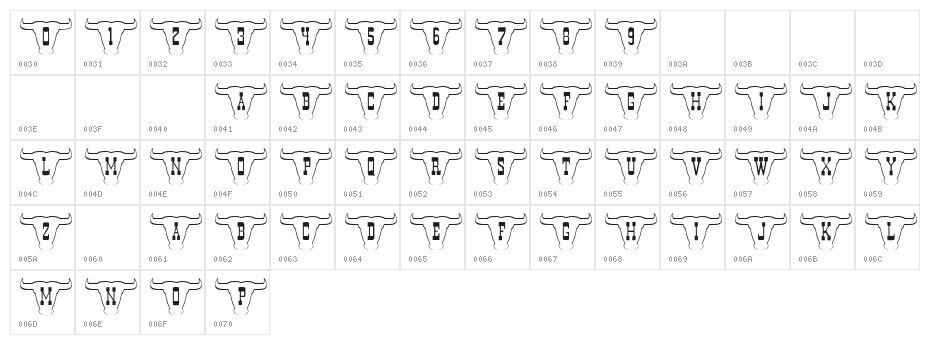
101! Texan Style Font
| Caso d'uso | Headlines, Logos, Themed Events |
| Progetti proposti | Ideal for Western-themed posters, event invitations, themed restaurant menus, or any project needing a Texan or cowboy aesthetic. |